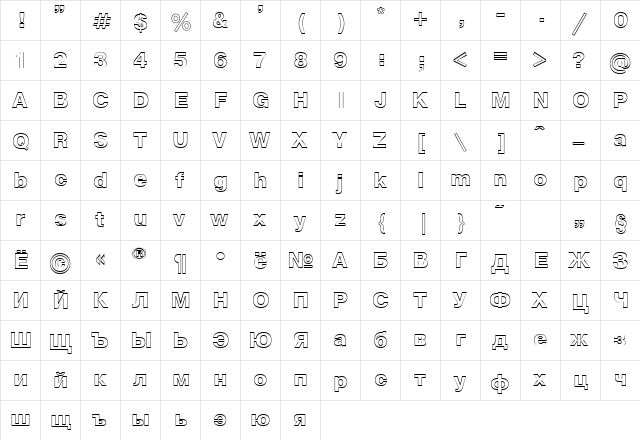
NTOutline Bold
Design Context for NTOutline Typeface
NTOutline brings ornamental detail and strong personality to headlines and identities, where visual impact matters more than quiet functionality. Its bold stroke weight gives it real presence on the page.
Font Pairing: Pair with a clean neutral sans-serif for body copy to let NTOutline's character lead without overwhelming the composition.
Pro Tip: Treat NTOutline as the centrepiece of your typographic hierarchy. One strong heading set in a decorative face can carry an entire layout.